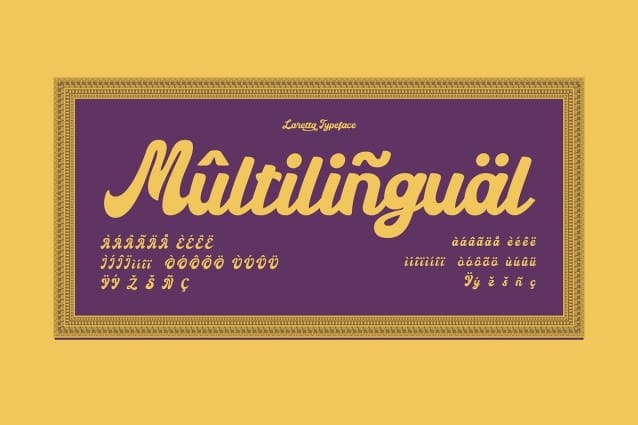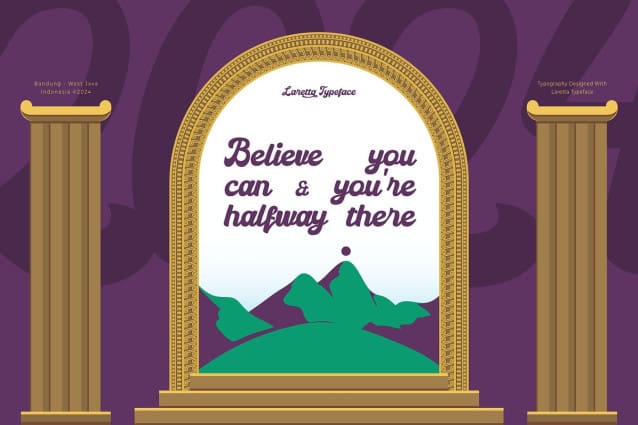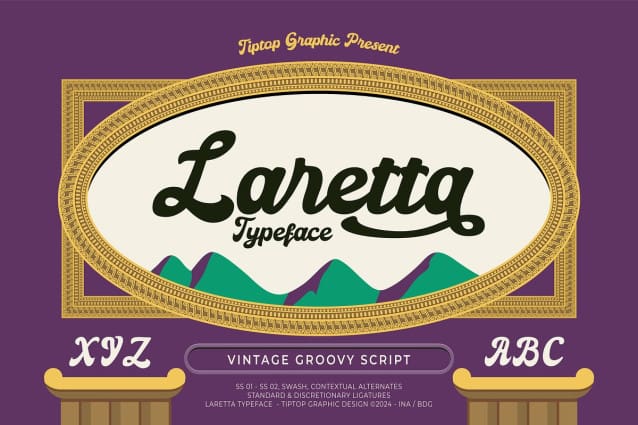
Laretta Script Font
Laretta Script Font a captivating vintage groovy script font that effortlessly blends the spirit of the past with an Aesthetic – Flora Psychedelic. This typeface is a celebration of retro aesthetics, reminiscent of the groovy and stylish typography that defined an era of creativity and freedom.